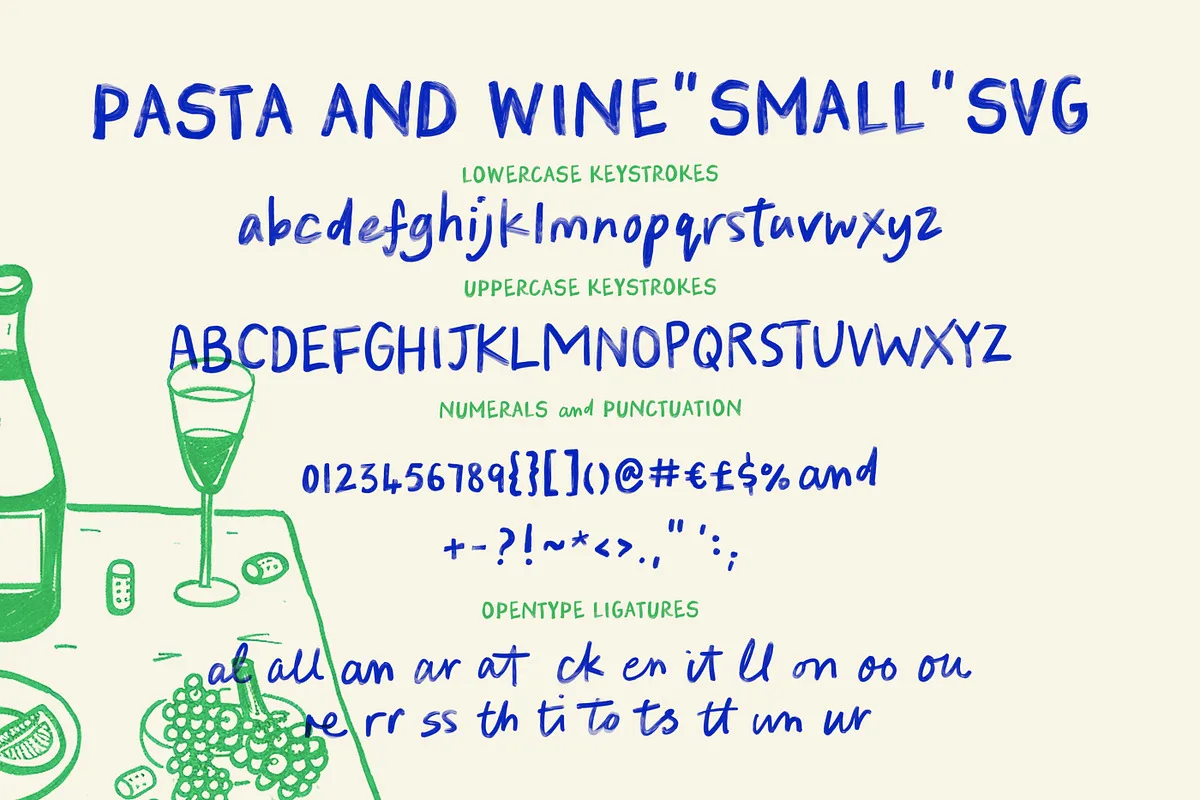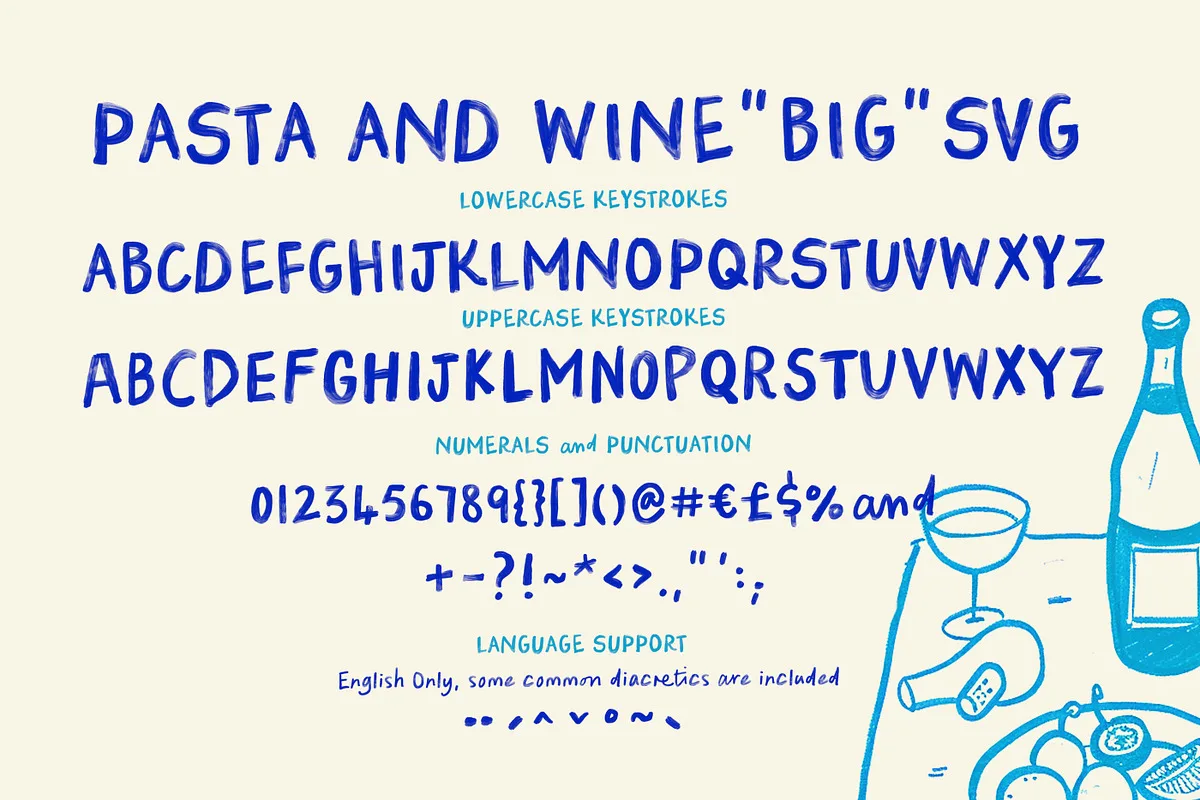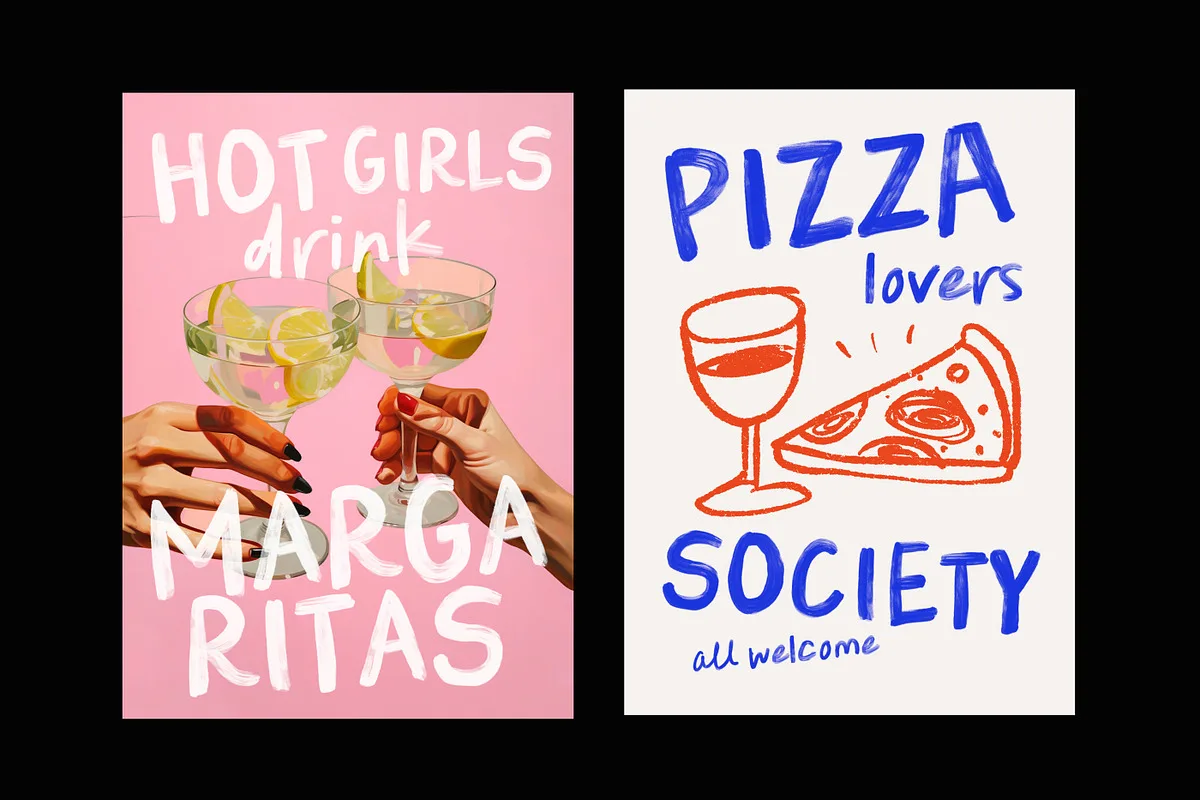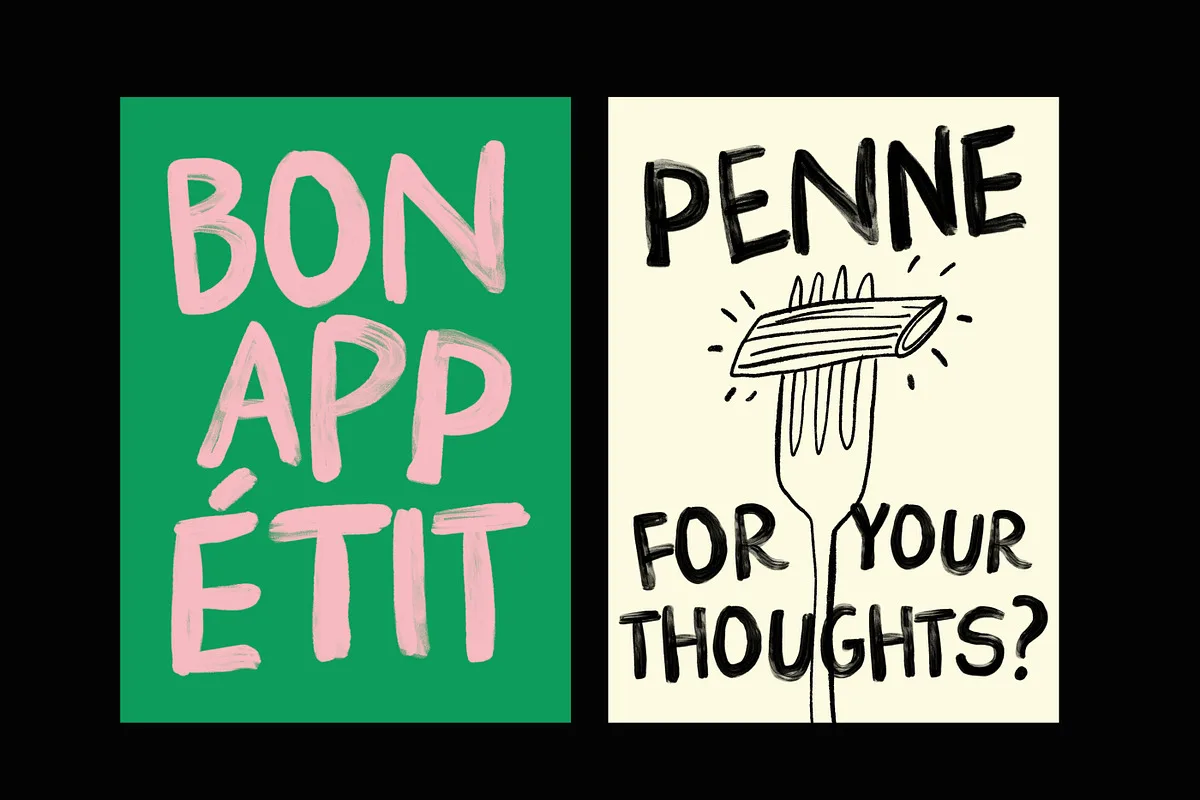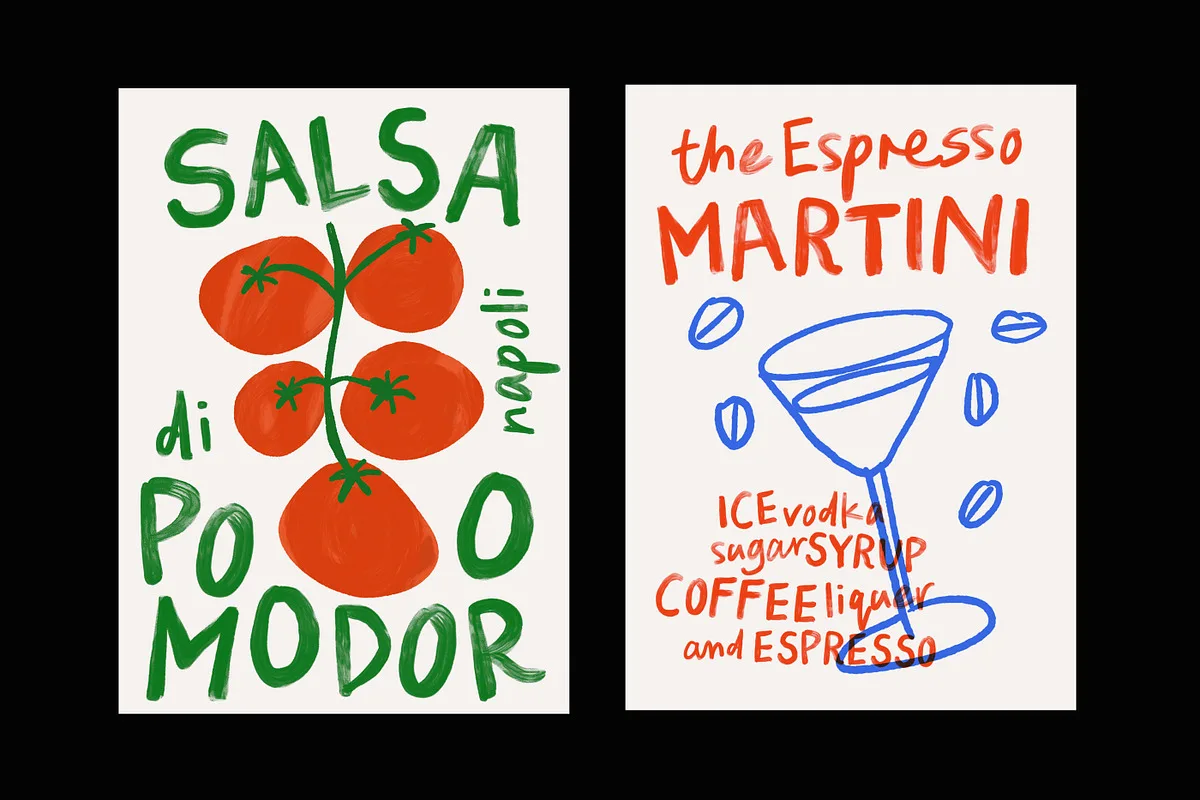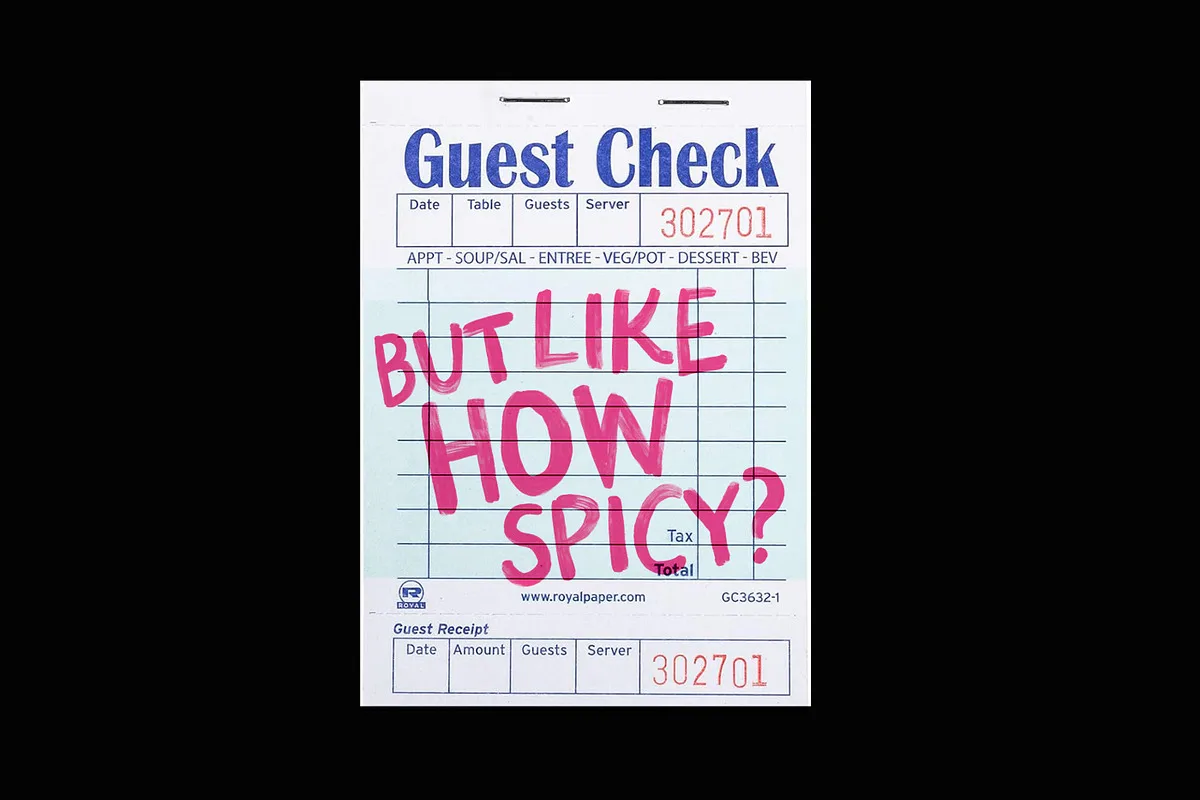
Pasta and Wine is a fun, casual painted bitmap SVG handwritten font. It’s lighthearted and full of pizazz—perfect for bold, cheeky hand-painted posters, greeting cards, and branding. Regular (non-SVG) versions for both styles are also available. This font is perfectly suited for marketing & advertising, quotes & social media posts, plus much more.
Pasta And Wine includes 2 styles:
- BIG: All-caps bold lettering – dont forget to toggle between uppercase and lowercase keystrokes for different styled uppercase alternates.
- SMALL: A matching font with lowercase letters, with option Opentype ligatures to add to a more natural hand lettered look.